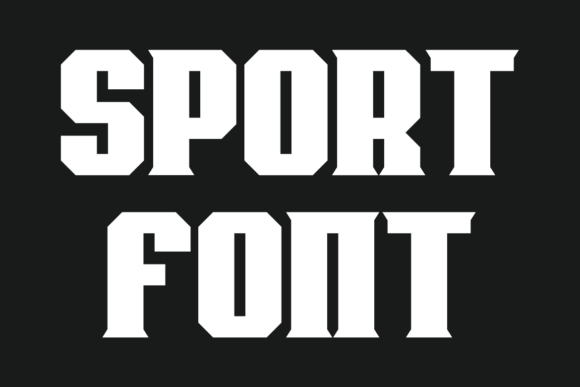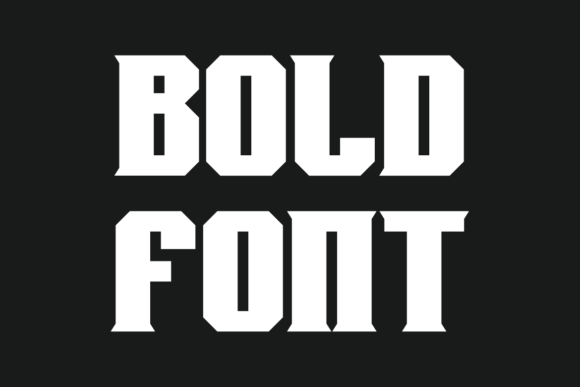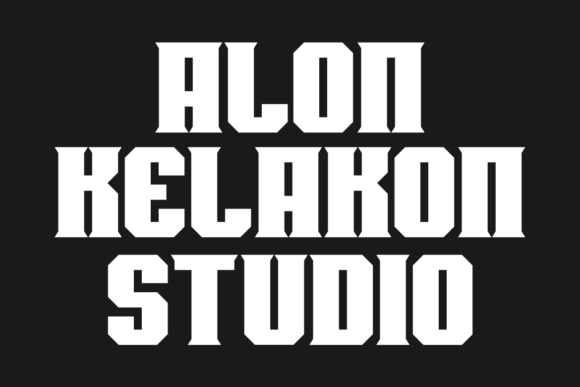
Introduction to Rexis Strong Font
Rexis Strong is a bold, all caps serif font featuring the perfect amount of trendiness.
Whether you’re using it for crafting, digital designing, presentations or greeting cards making, it’s perfect .
Key Features of Rexis Strong Font
Why Choose Rexis Strong Font?